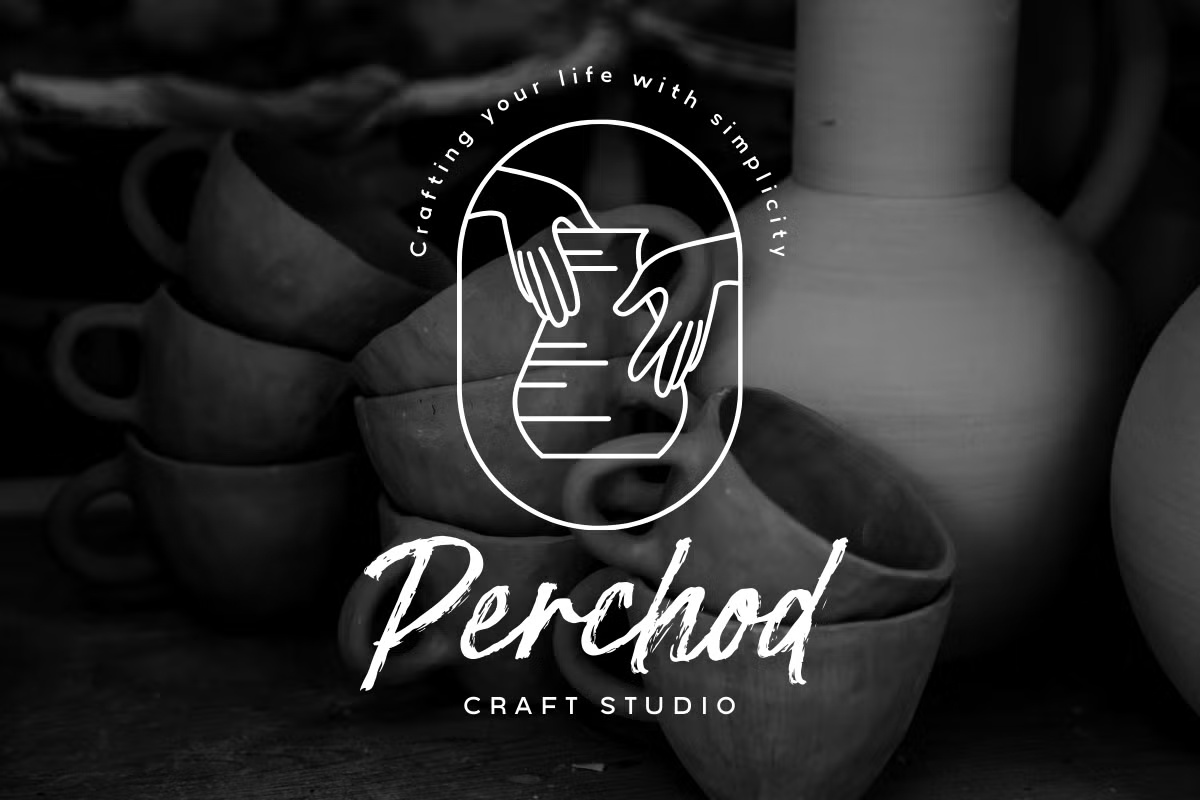
Poleska Font
Poleska is a dynamic and expressive brush script font with a natural, hand-drawn style. Inspired by pencil-drawn strokes, it brings an organic and authentic feel to any design.
With its smooth lines and realistic texture, Poleska is perfect for branding, logos, packaging, invitations, social media graphics, and more.
Poleska Brush Script Font